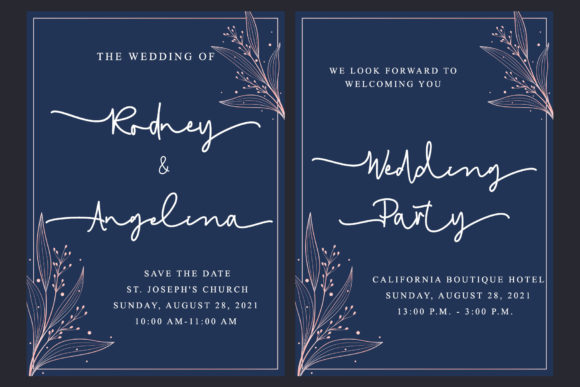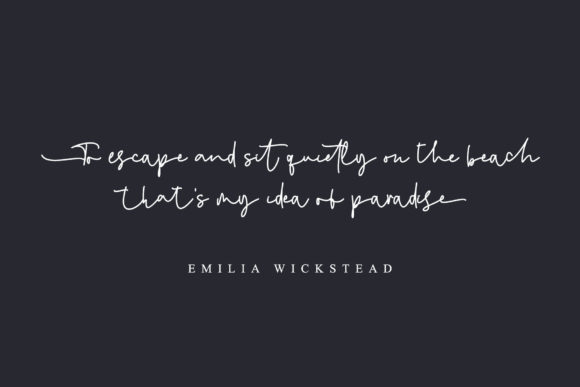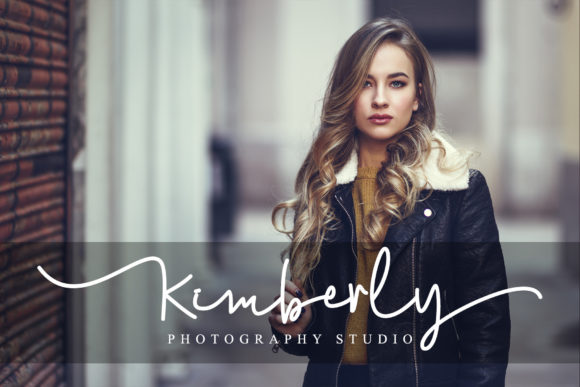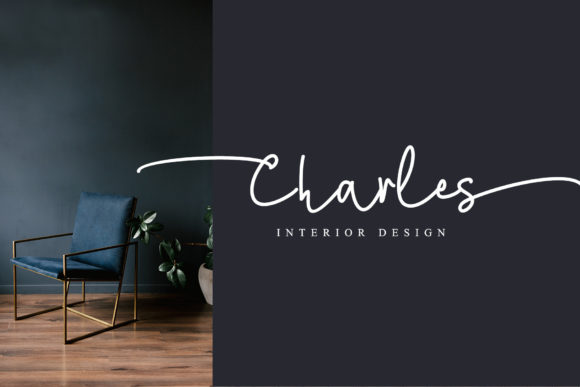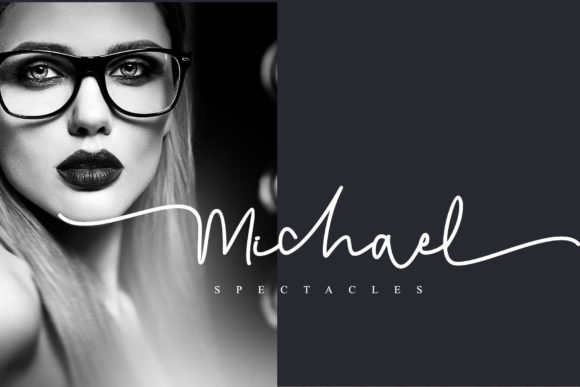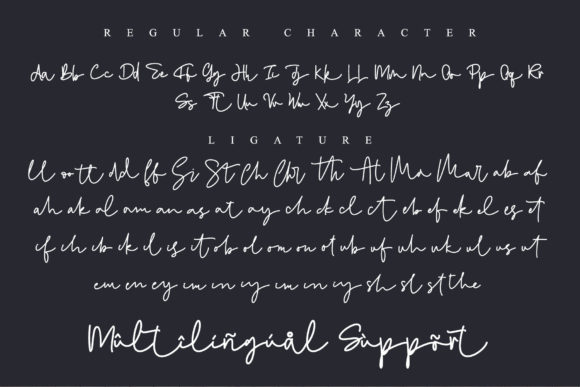
Introduction to Emely Font
Emely is an elegant script font with a contemporary atmosphere and impeccable form, inspired by timeless classic calligraphy.
Not too thin and not too thick, balanced and varied, this font was designed to enhance the beauty of your projects This font is PUA encoded which means you can access all of the glyphs and swashes with ease.